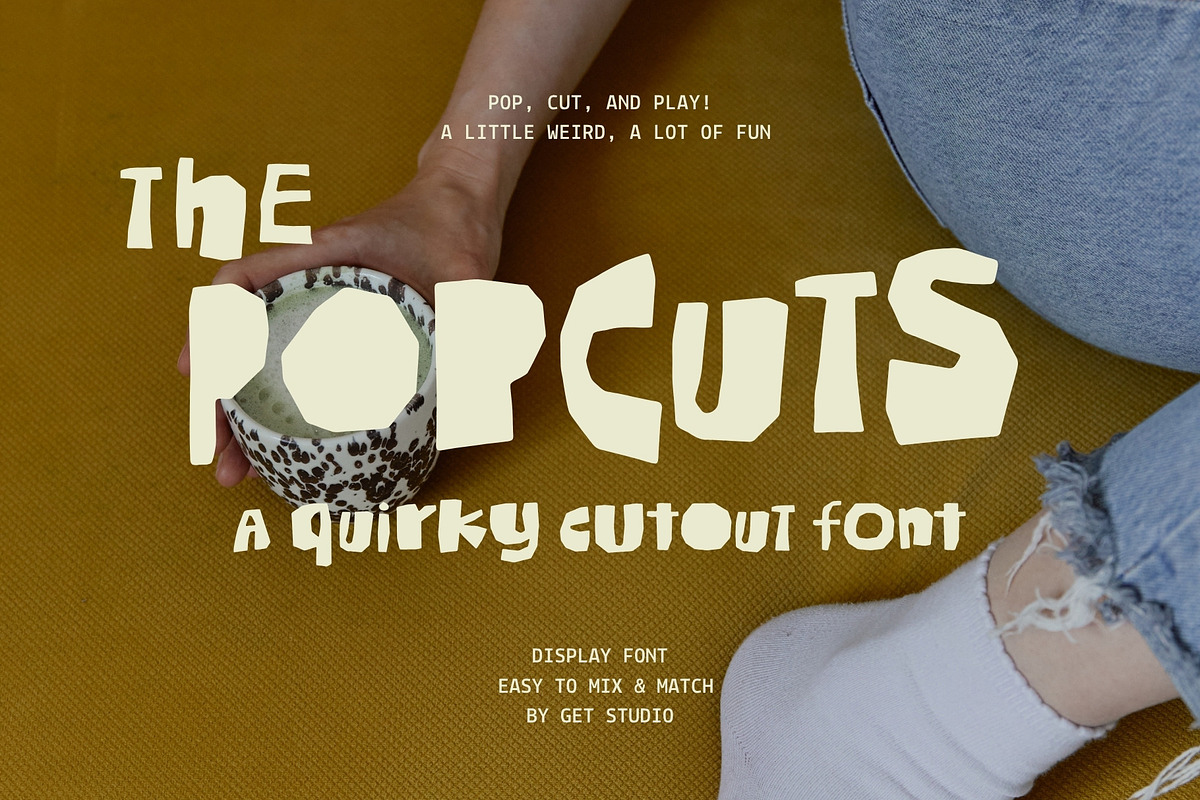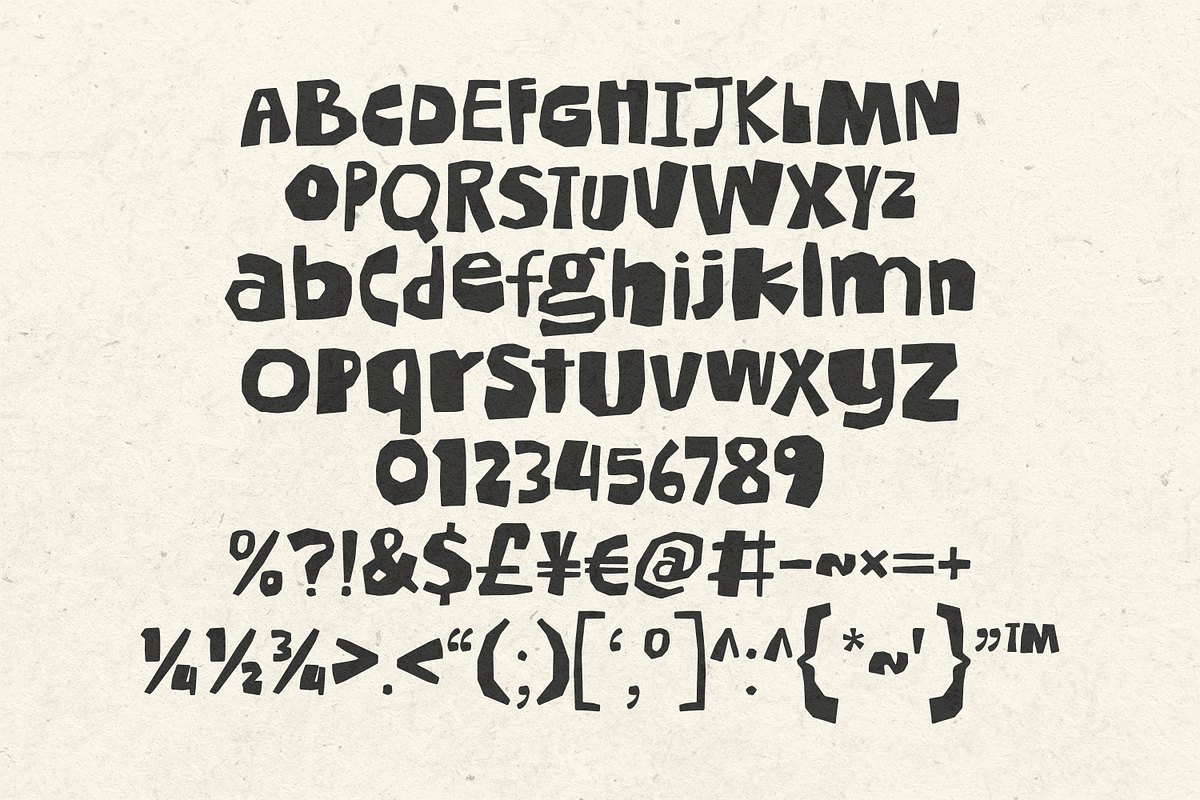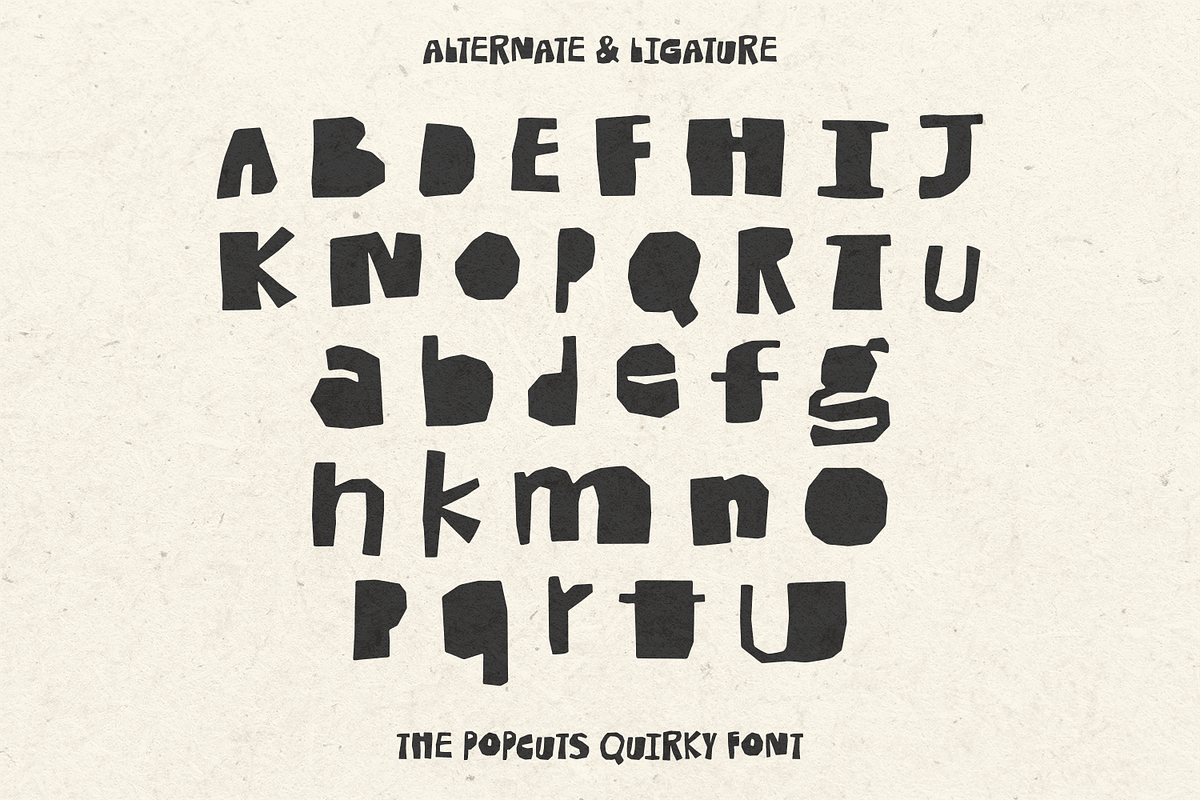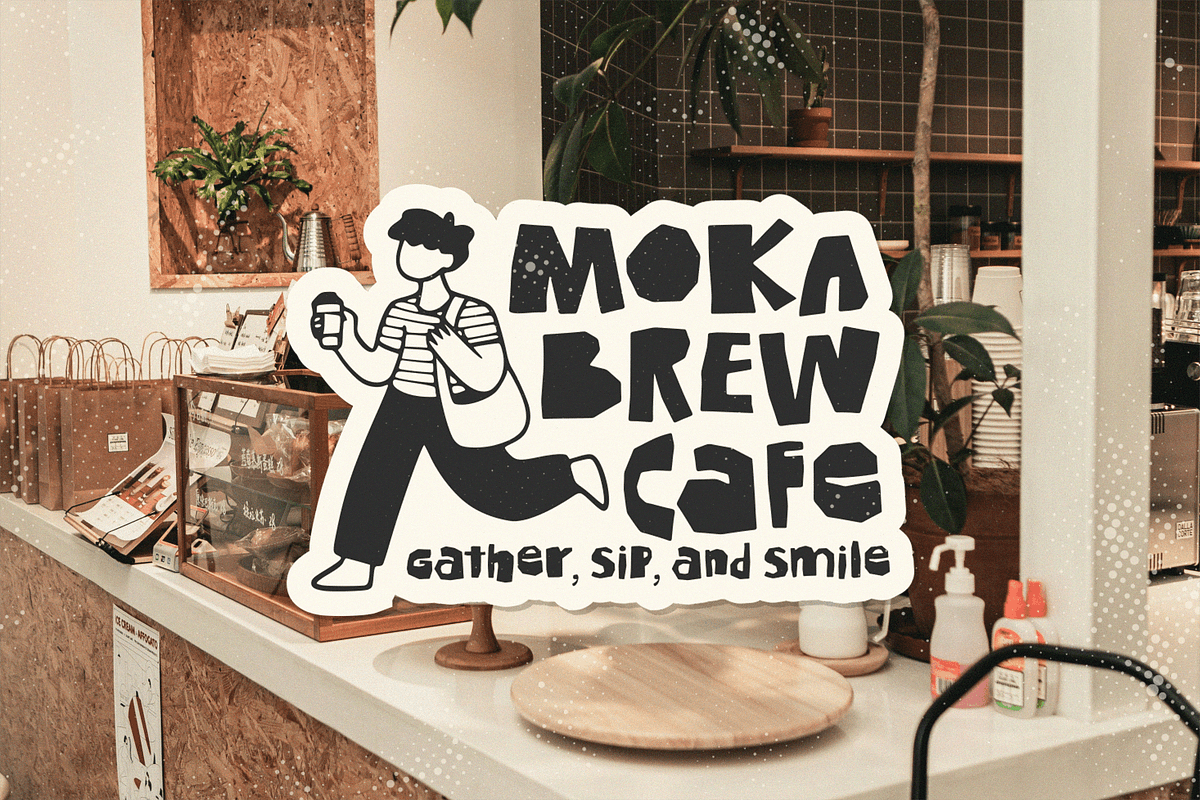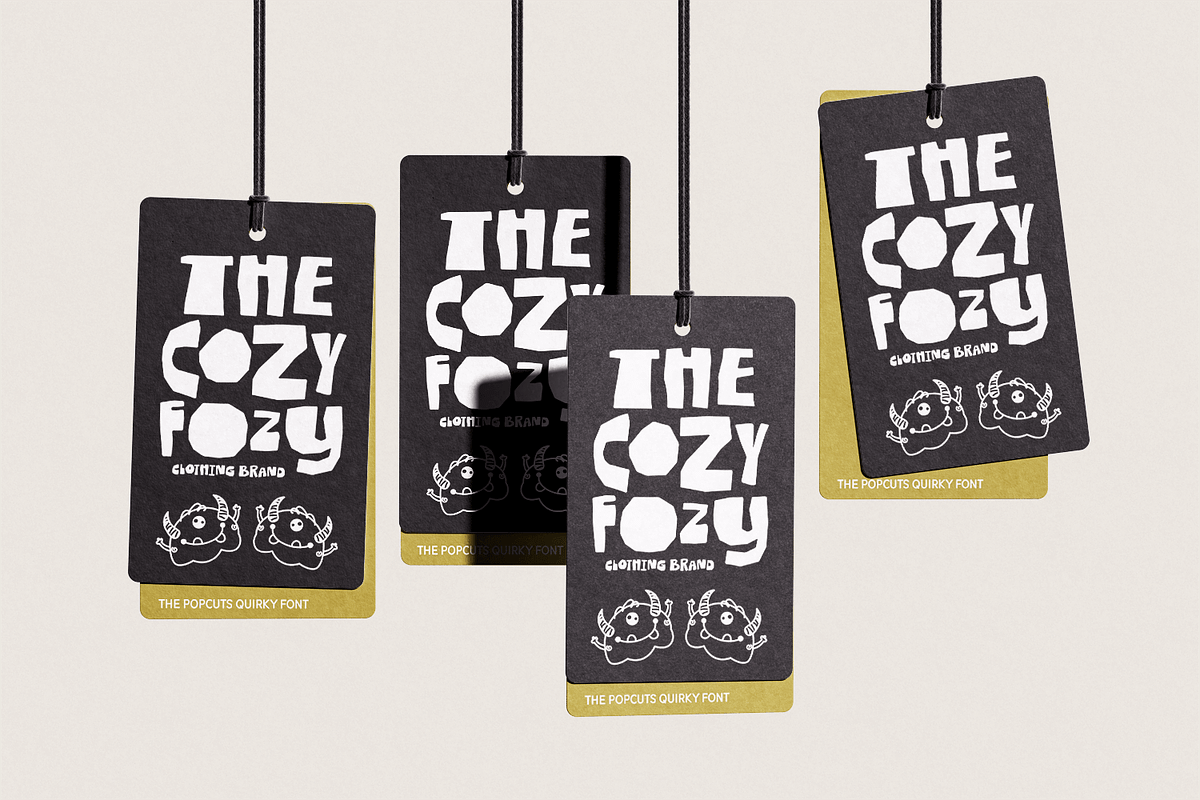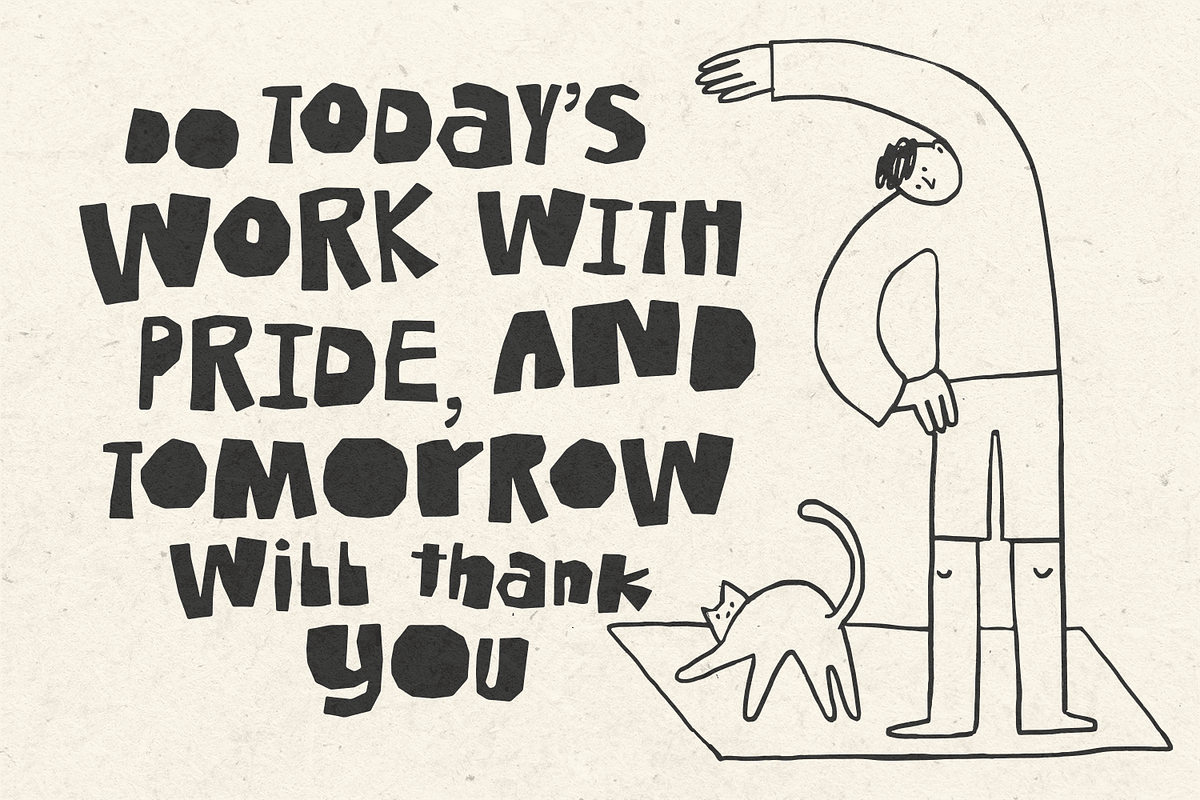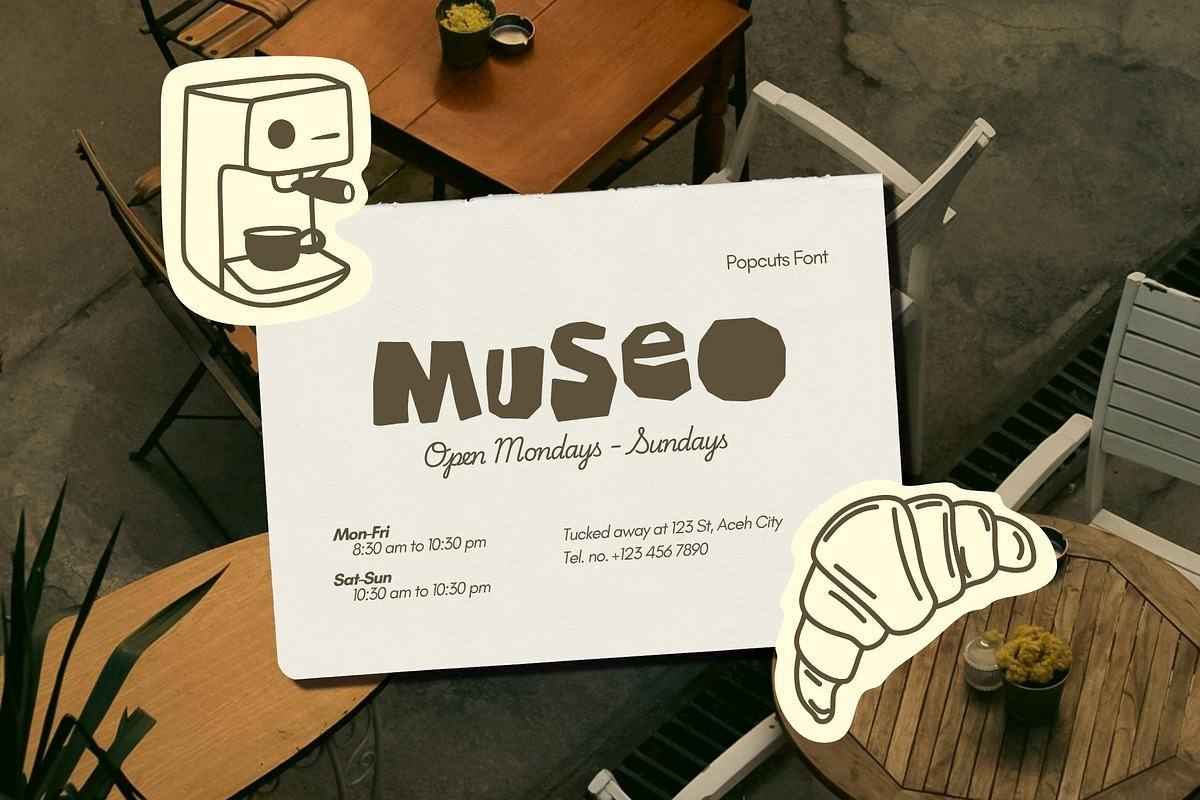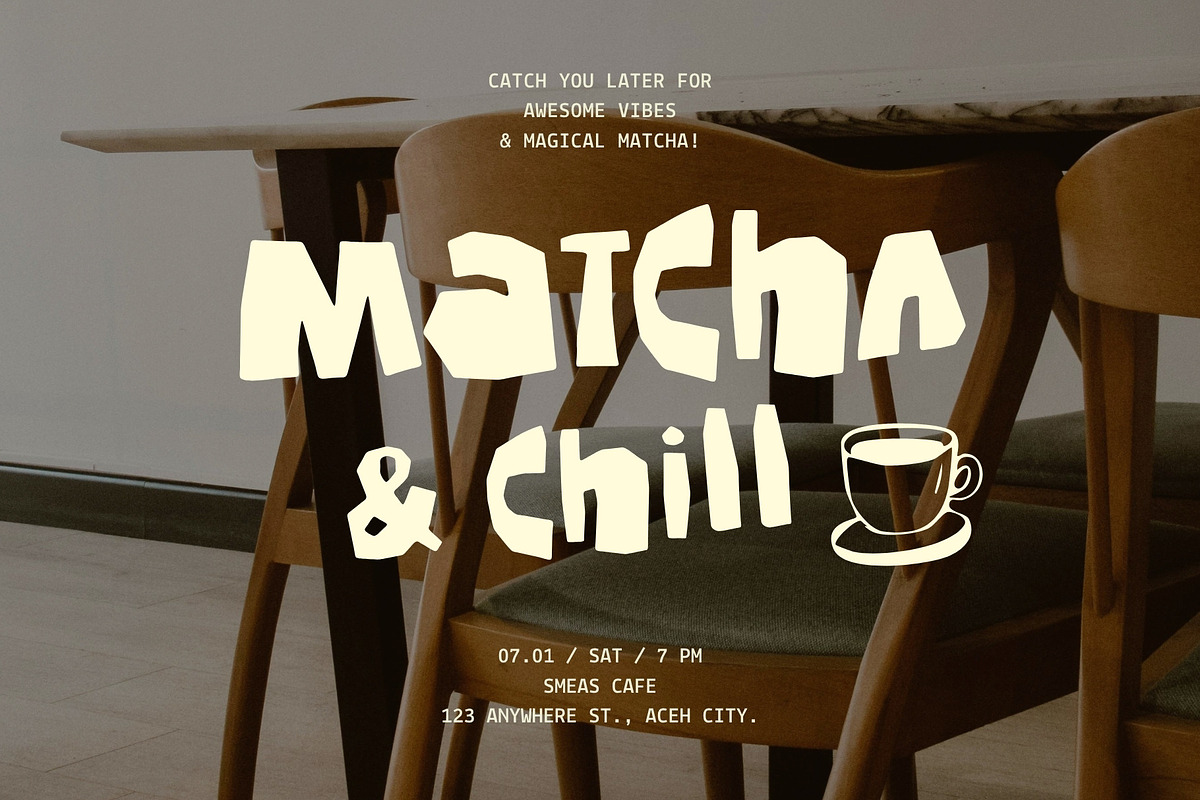
The Popcuts – A Quirky Cutout Font
Say hello to The Popcuts, a quirky cutout display font that brings a handcrafted, collage-like vibe into your work. Inspired by paper cut shapes and playful layouts, this font embraces imperfection in the best way—giving your text a natural, organic, and lively feel.
Whether you're designing posters, packaging, or social media graphics, The Popcuts helps you stand out with its chunky forms and fun personality. It’s the kind of font that doesn’t try too hard—but still steals the spotlight.
Uppercase & Lowercase letters